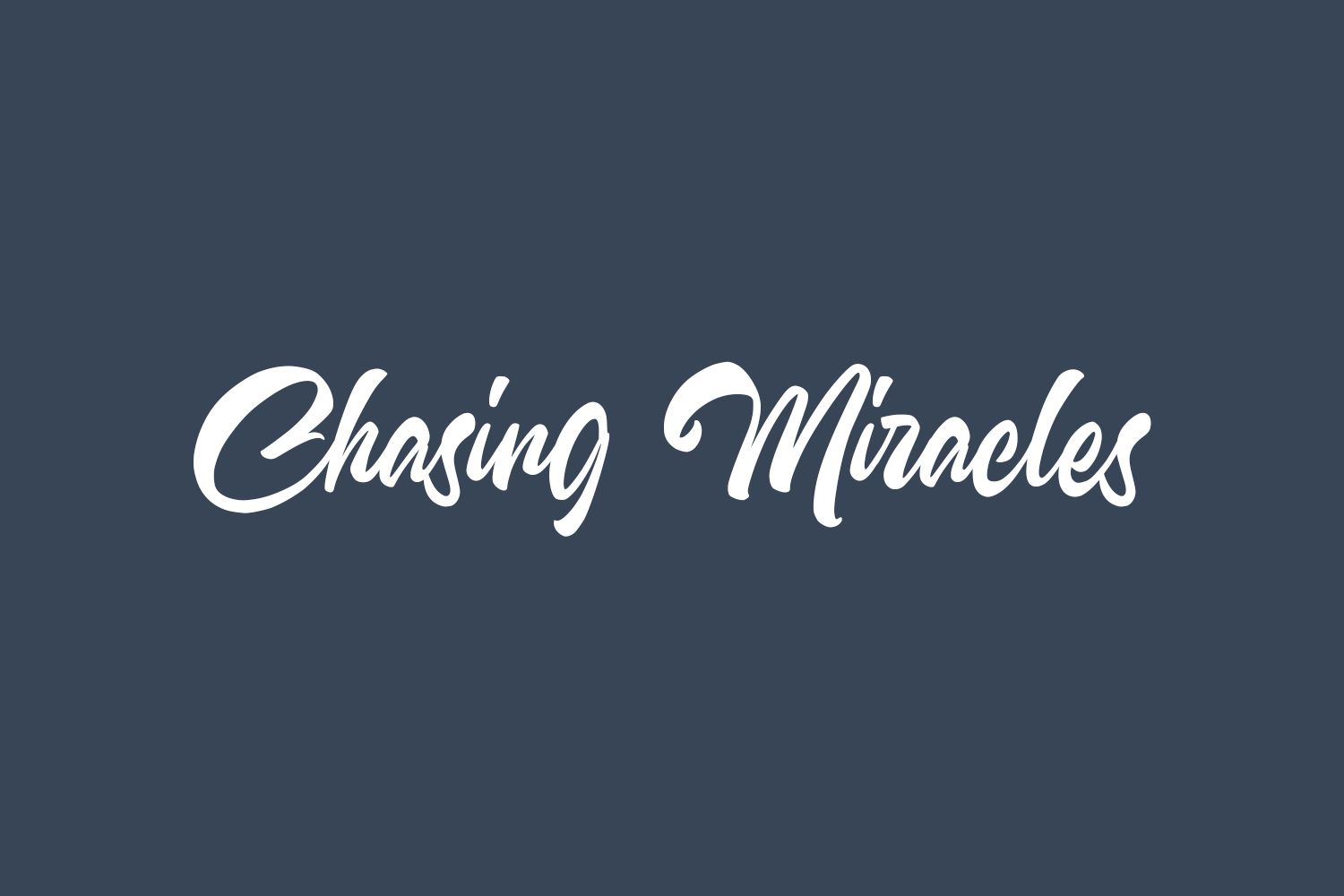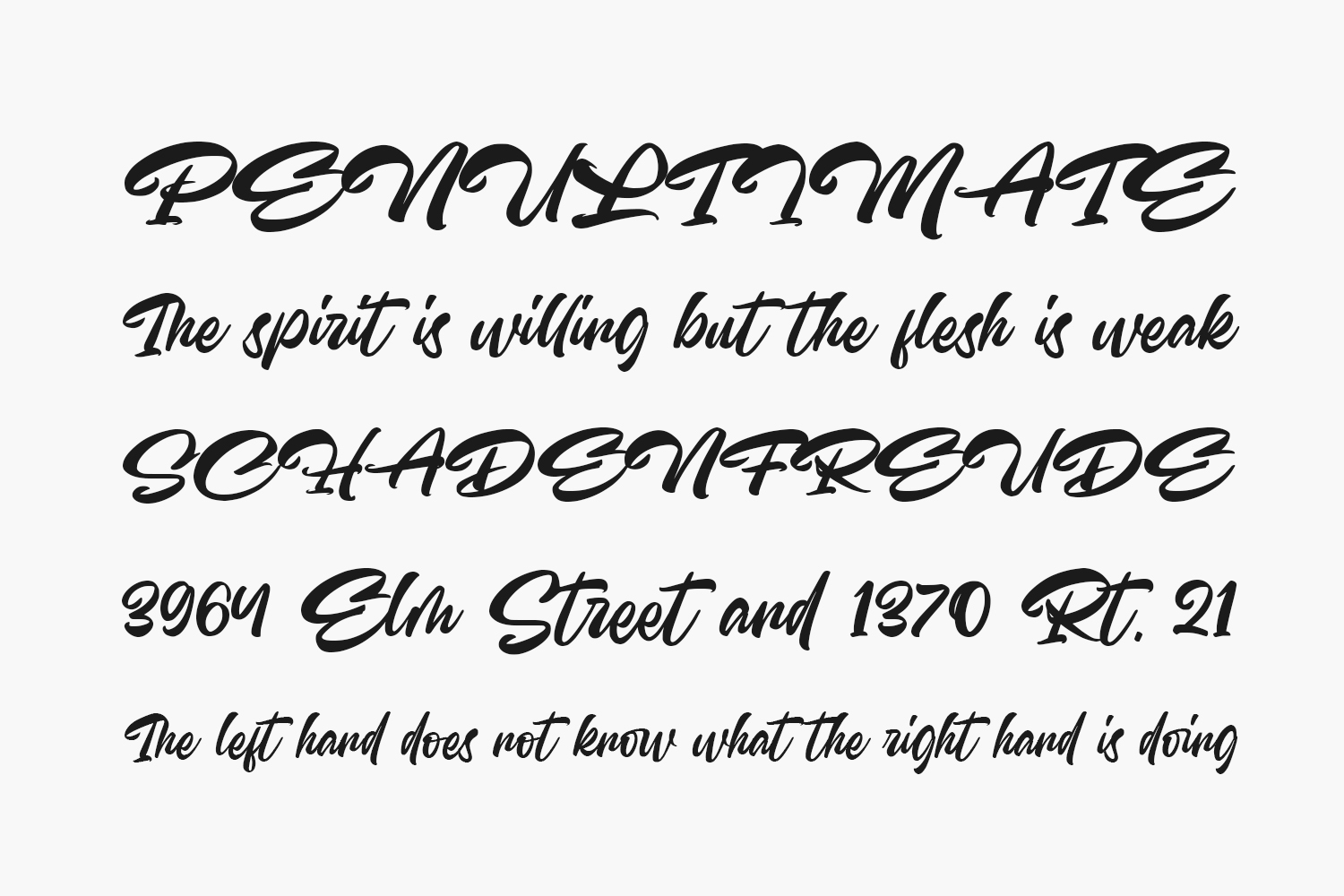
Chasing Miracles Free Font is a brush script handwriting font that exudes a sense of hope and wonder. Its fluid strokes and playful curves evoke a feeling of freedom and creativity, making it the perfect choice for crafting heartfelt messages and uplifting designs.